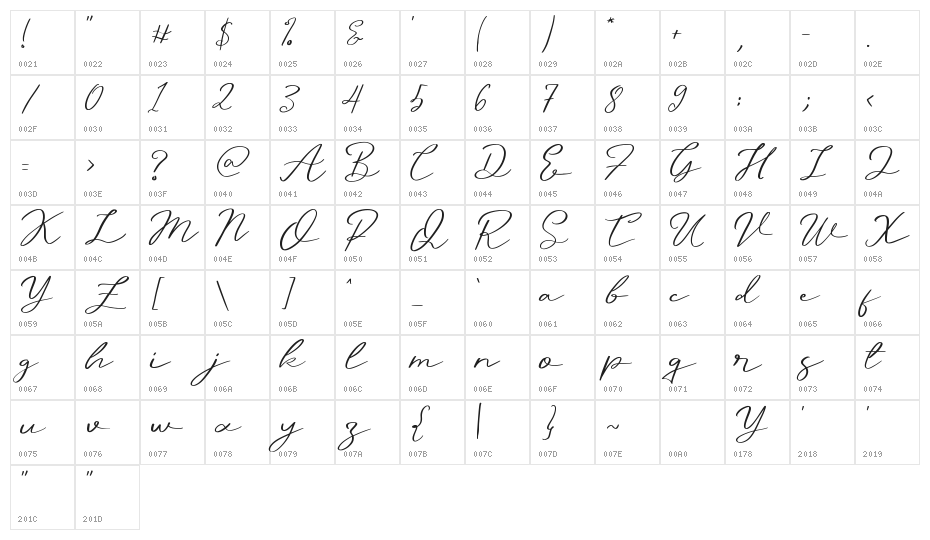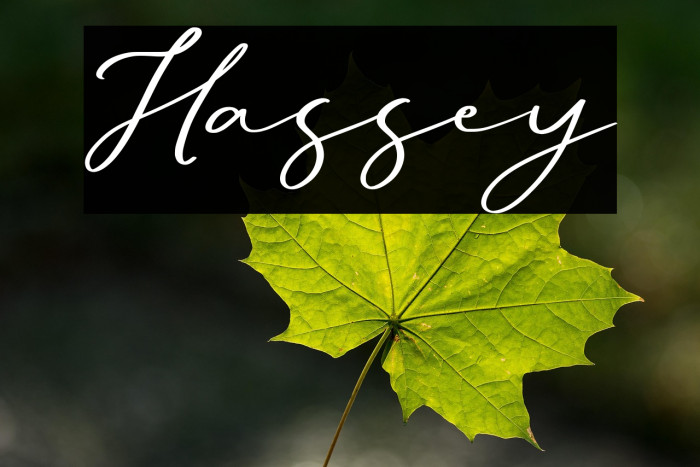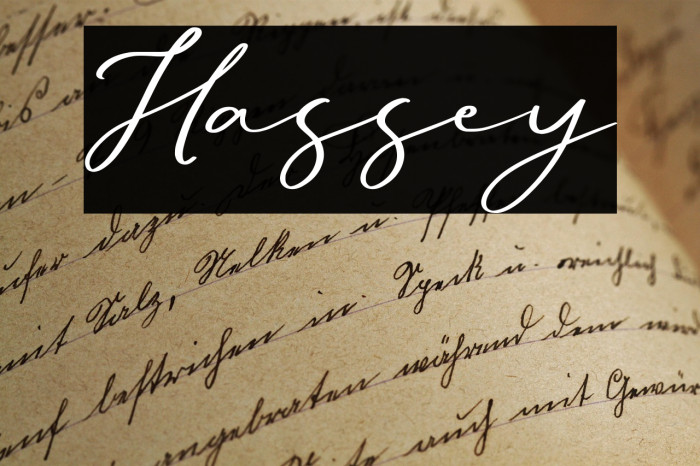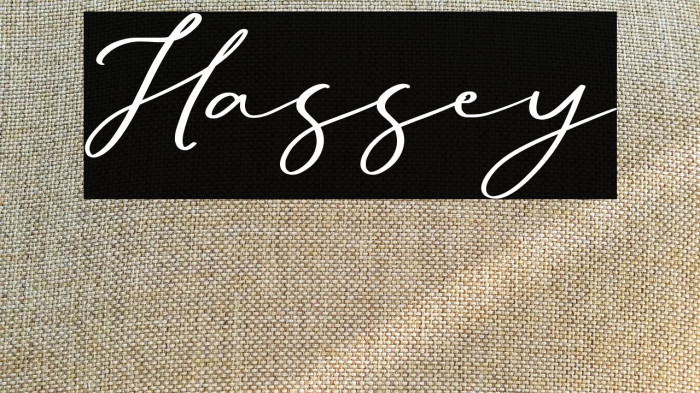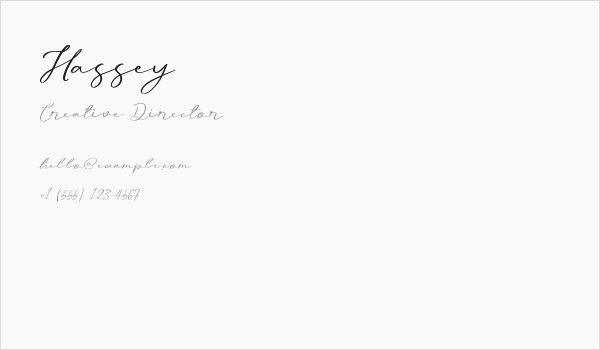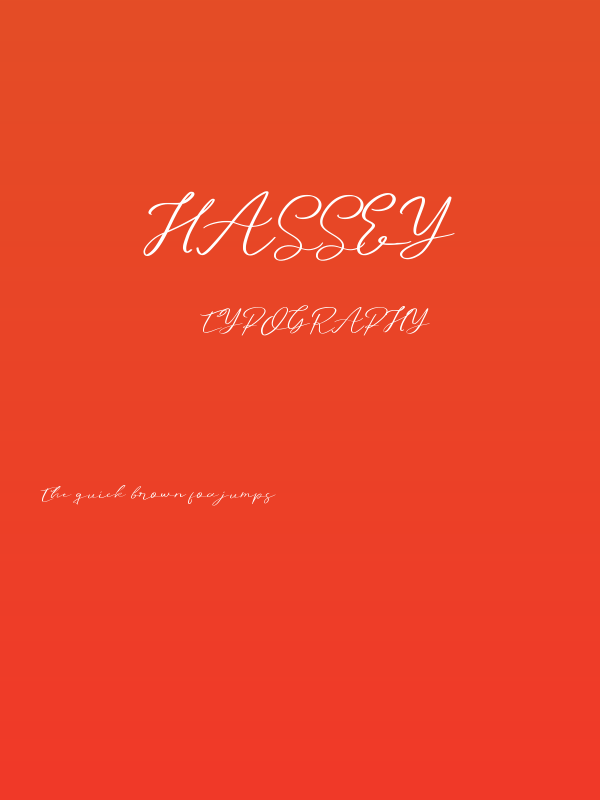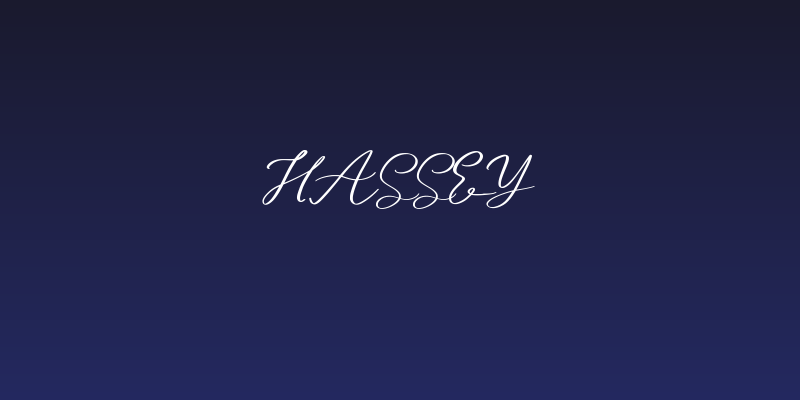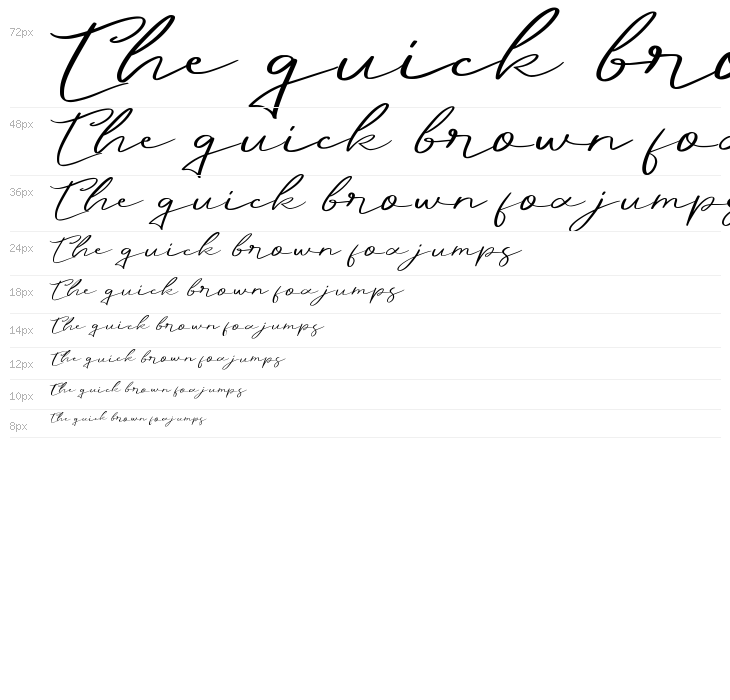
Hassey Font
Hassey Description
This font features an elegant and flowing script style, characterized by its smooth, continuous strokes and graceful curves. The uppercase letters are slightly more ornate, with extended loops and swashes, while the lowercase letters maintain a consistent, fluid motion. The numerals are designed to complement the alphabet with similar curves and a cohesive style. Special characters are integrated seamlessly, maintaining the overall aesthetic. This font exudes a sense of sophistication and charm, making it ideal for projects that require a touch of elegance.
| Proposed Projects | Ideal for wedding invitations, elegant branding, personal signatures, and upscale packaging designs. |